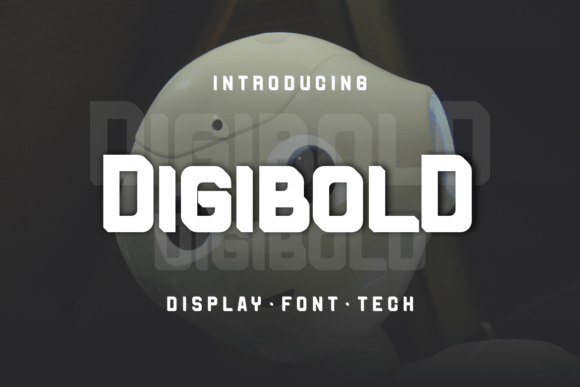
Introduction to Digibold Font
Digibold is a cool and modern display font.
Whatever the topic, this font will be a wonderful asset to your font library, as it has the potential to enhance any creation .
Key Features of Digibold Font
Why Choose Digibold Font?
Digibold Font offers exceptional quality and versatility, making it a valuable addition to your design toolkit. Whether you’re creating for personal projects or commercial use, Digibold Font delivers professional results.